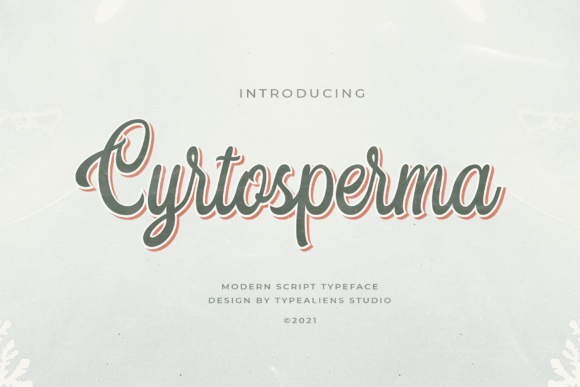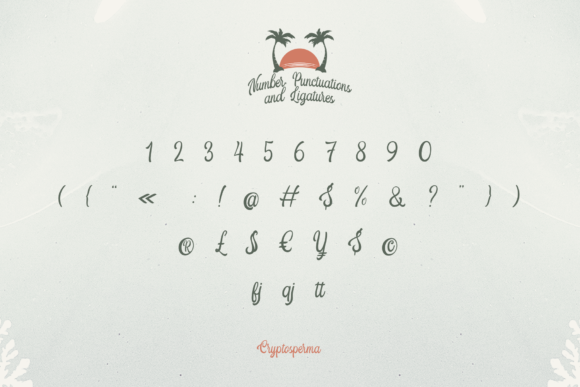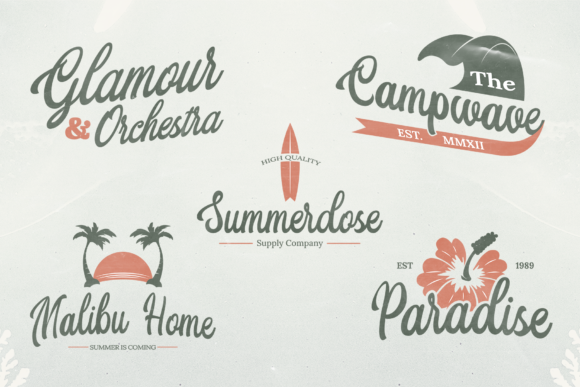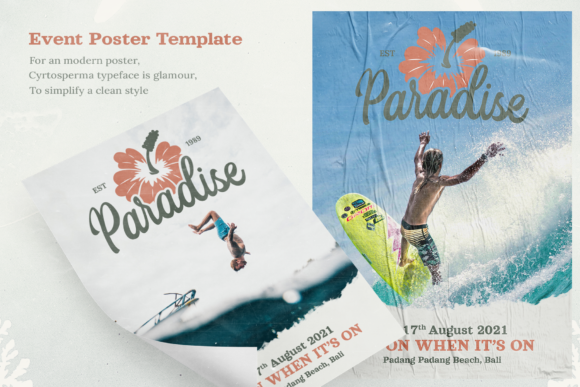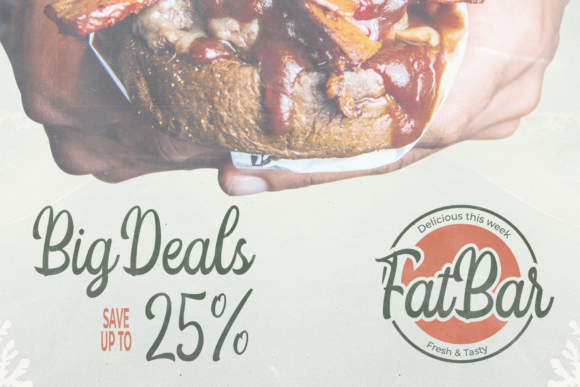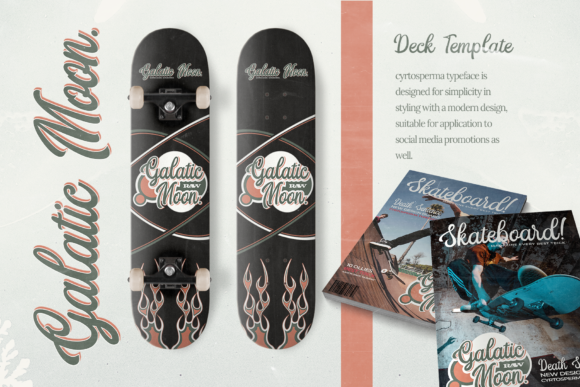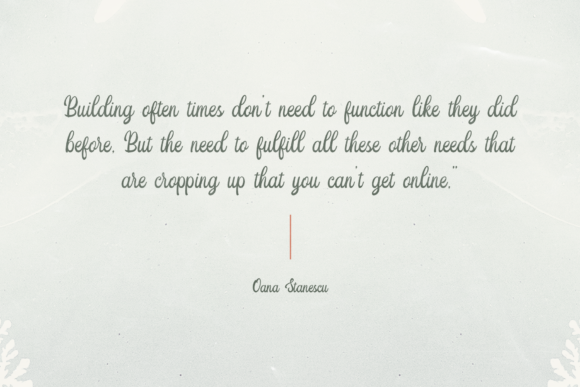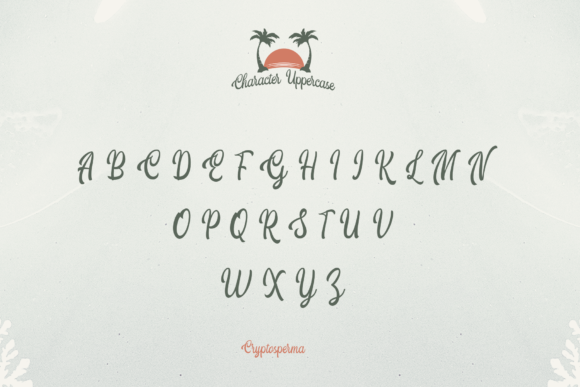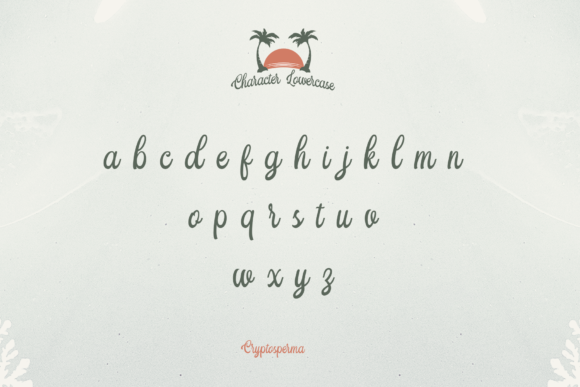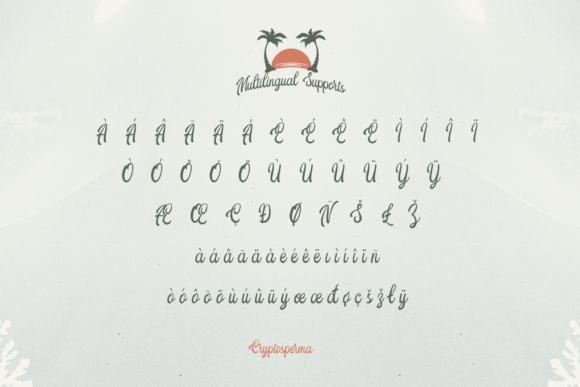
Cyrtosperma Font
About Cyrtosperma Font
Cyrtosperma is a vintage styled, elegant and flowing handwritten font. It has beautiful and well balanced characters and as a result, it matches a wide pool of designs.